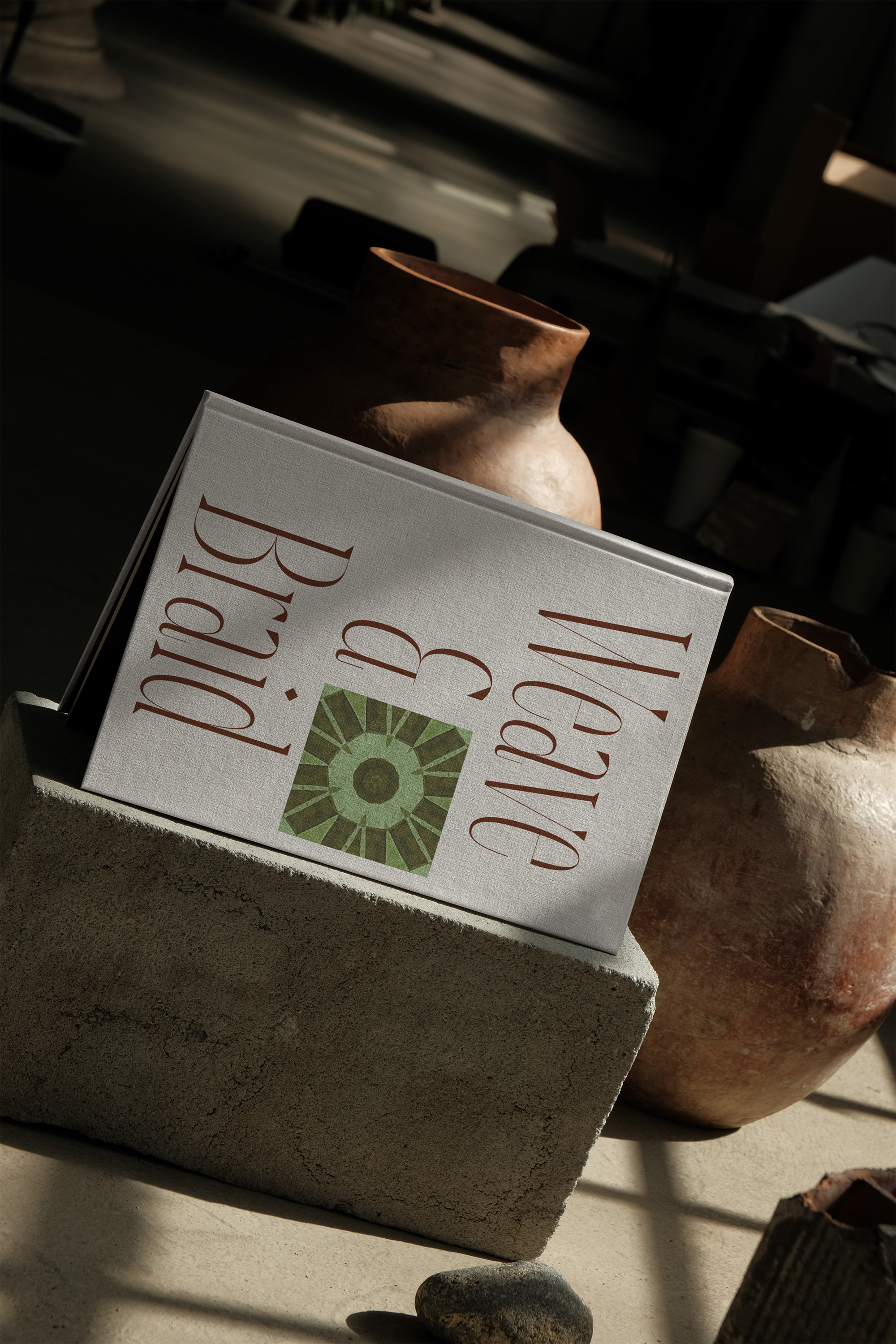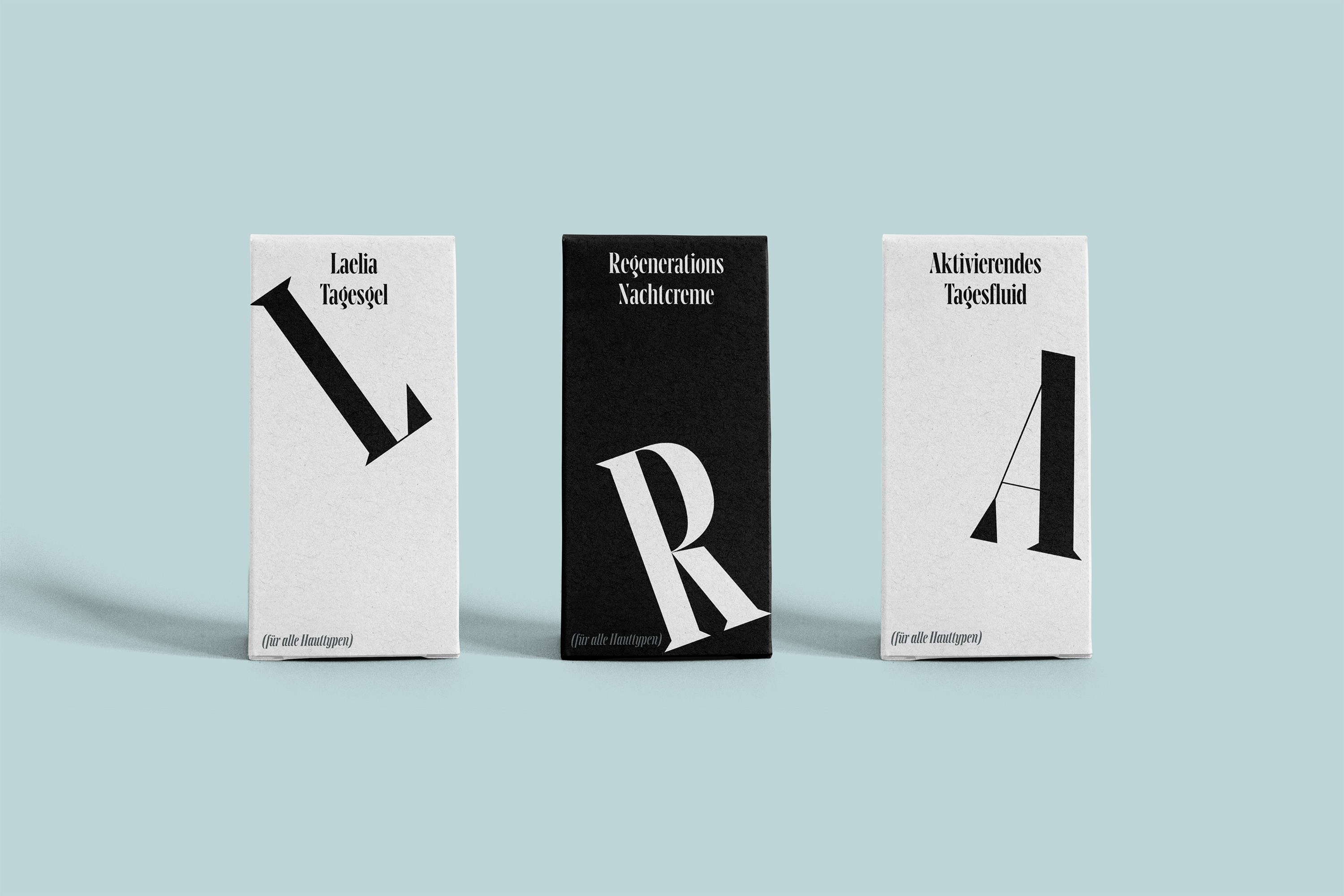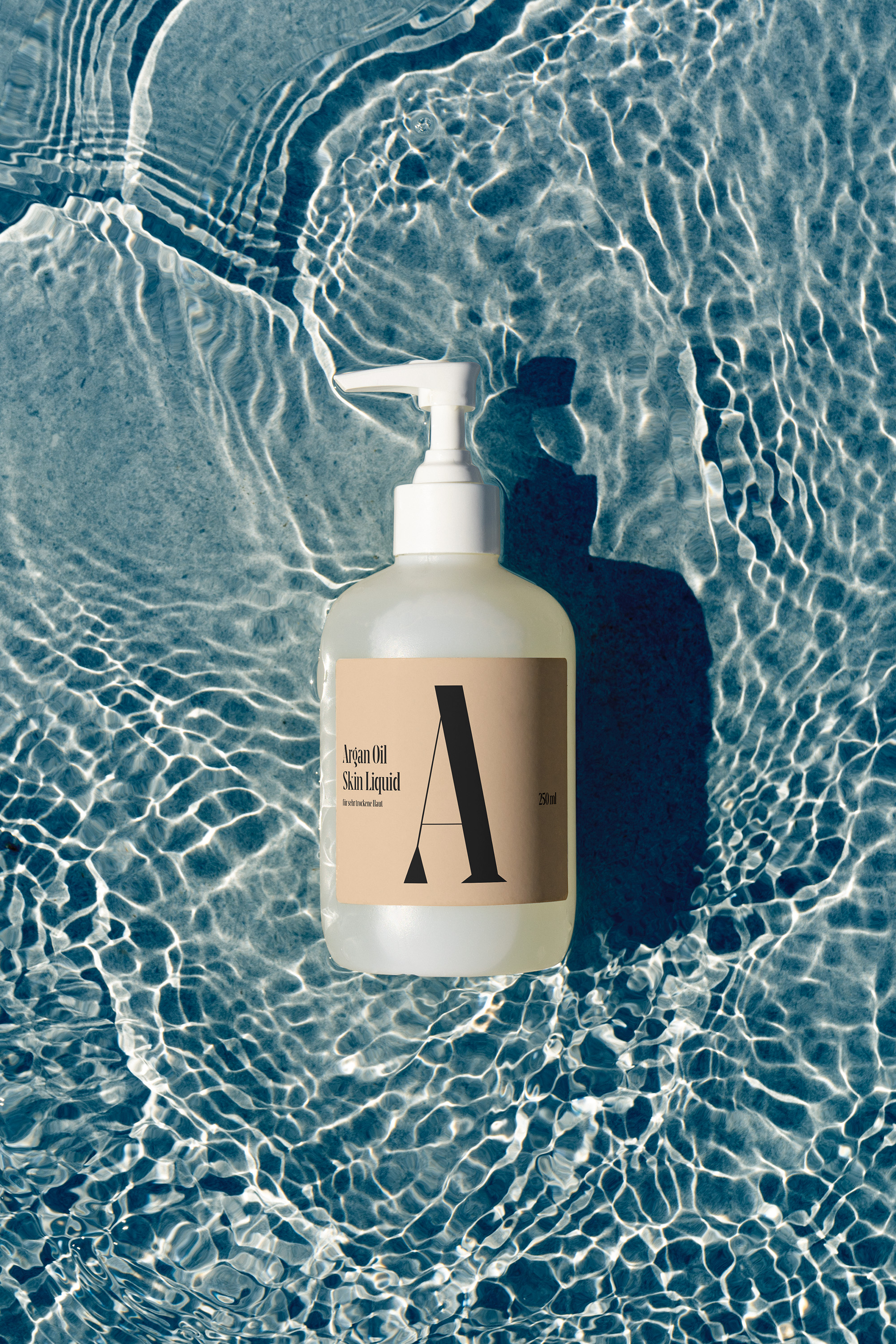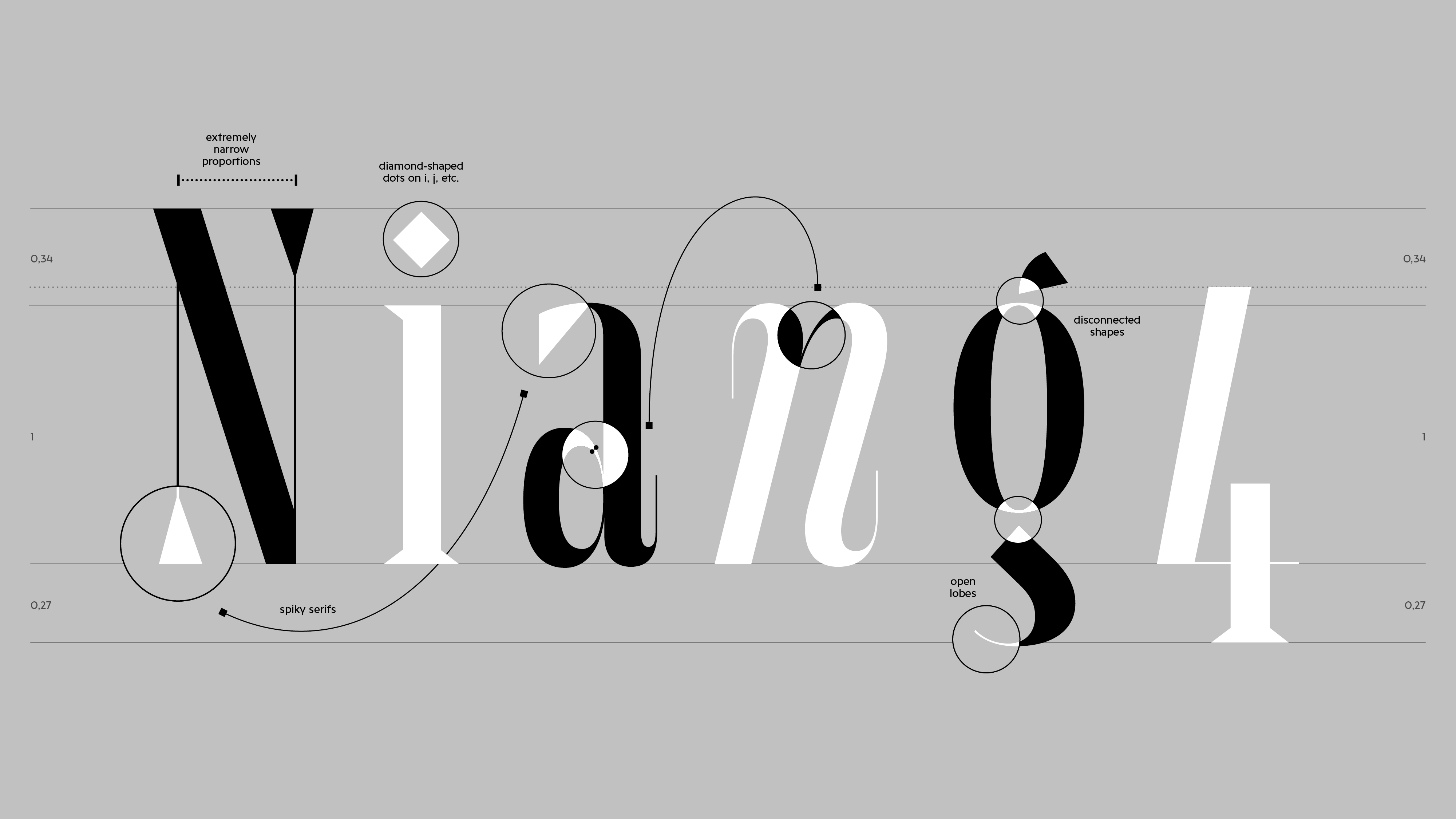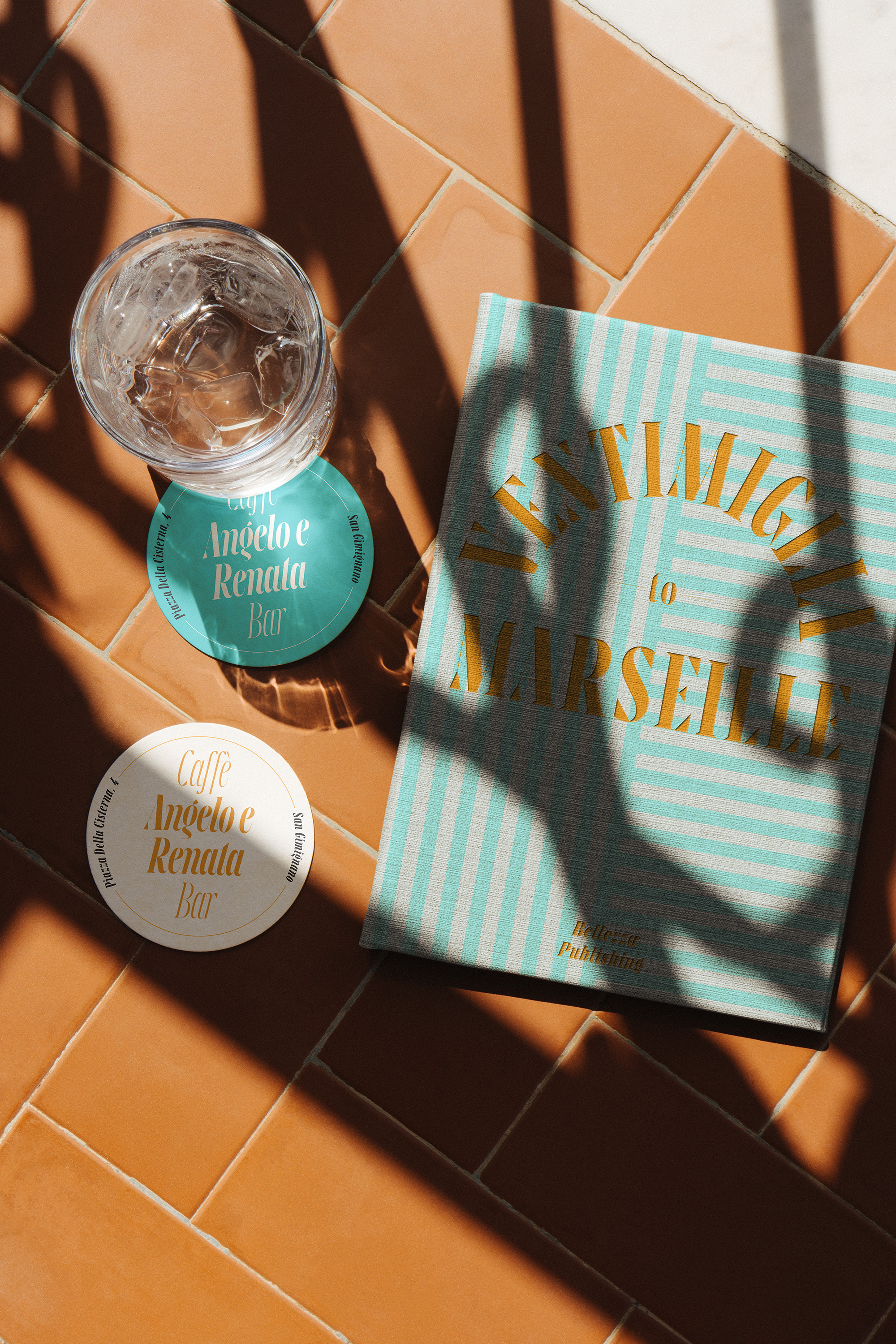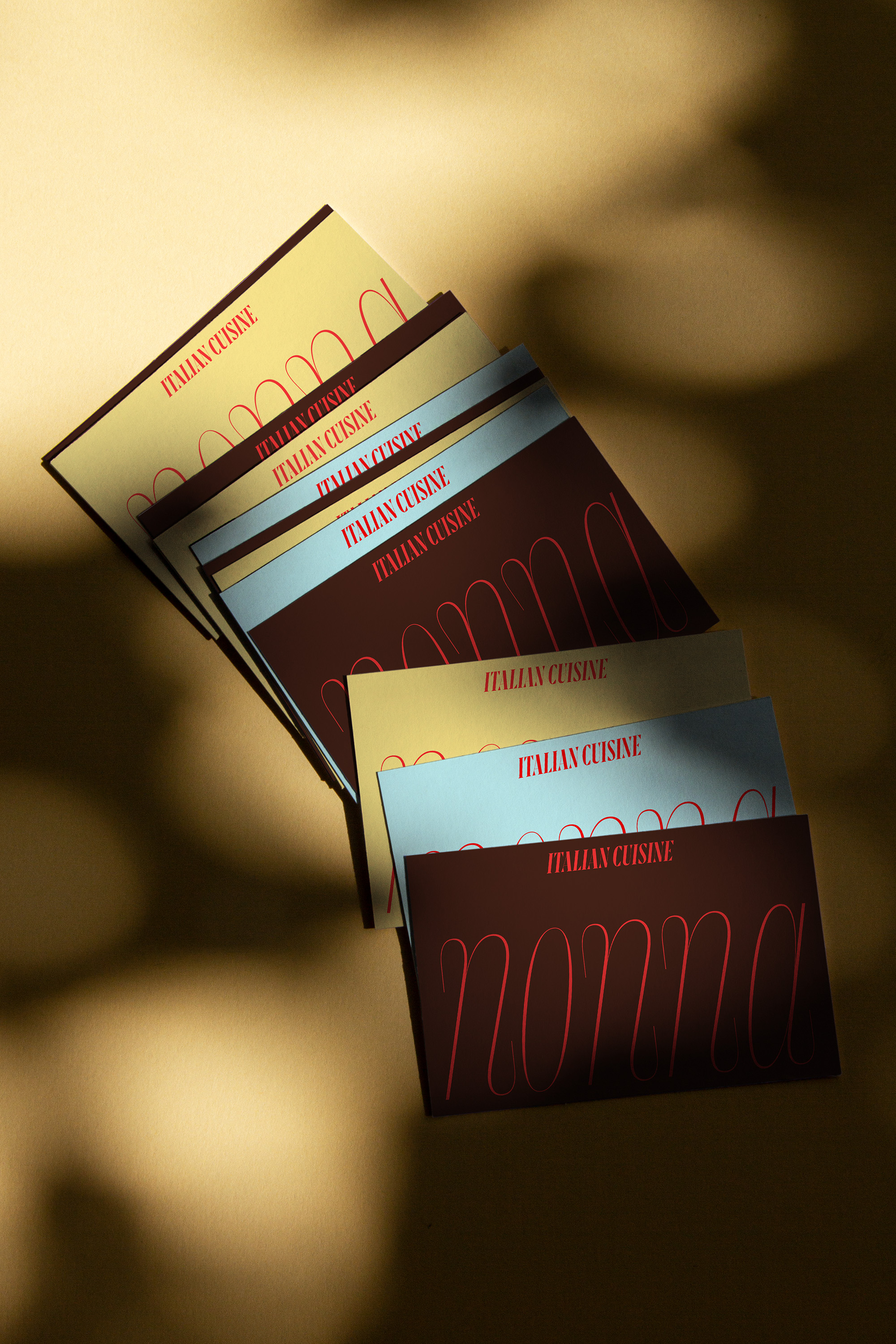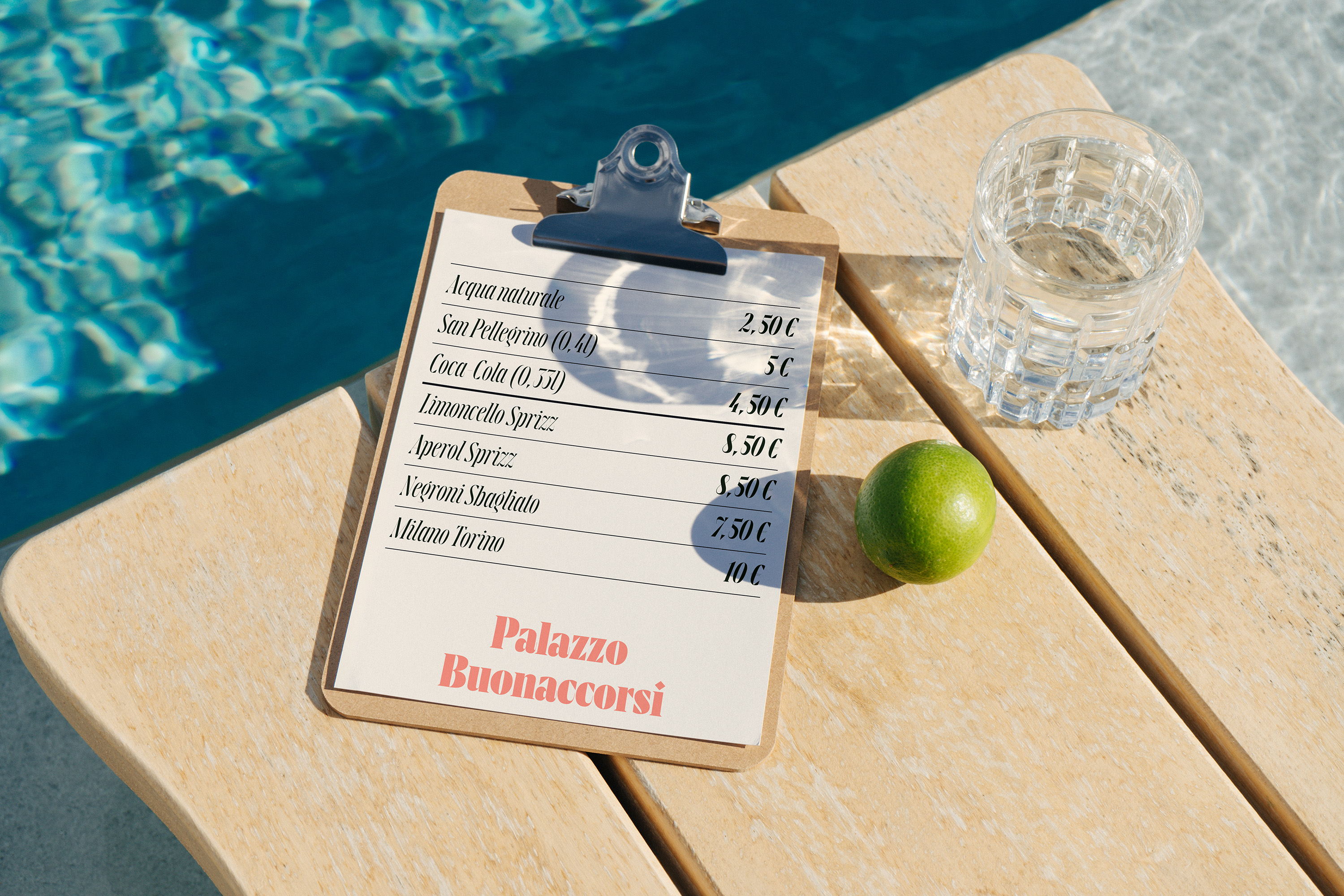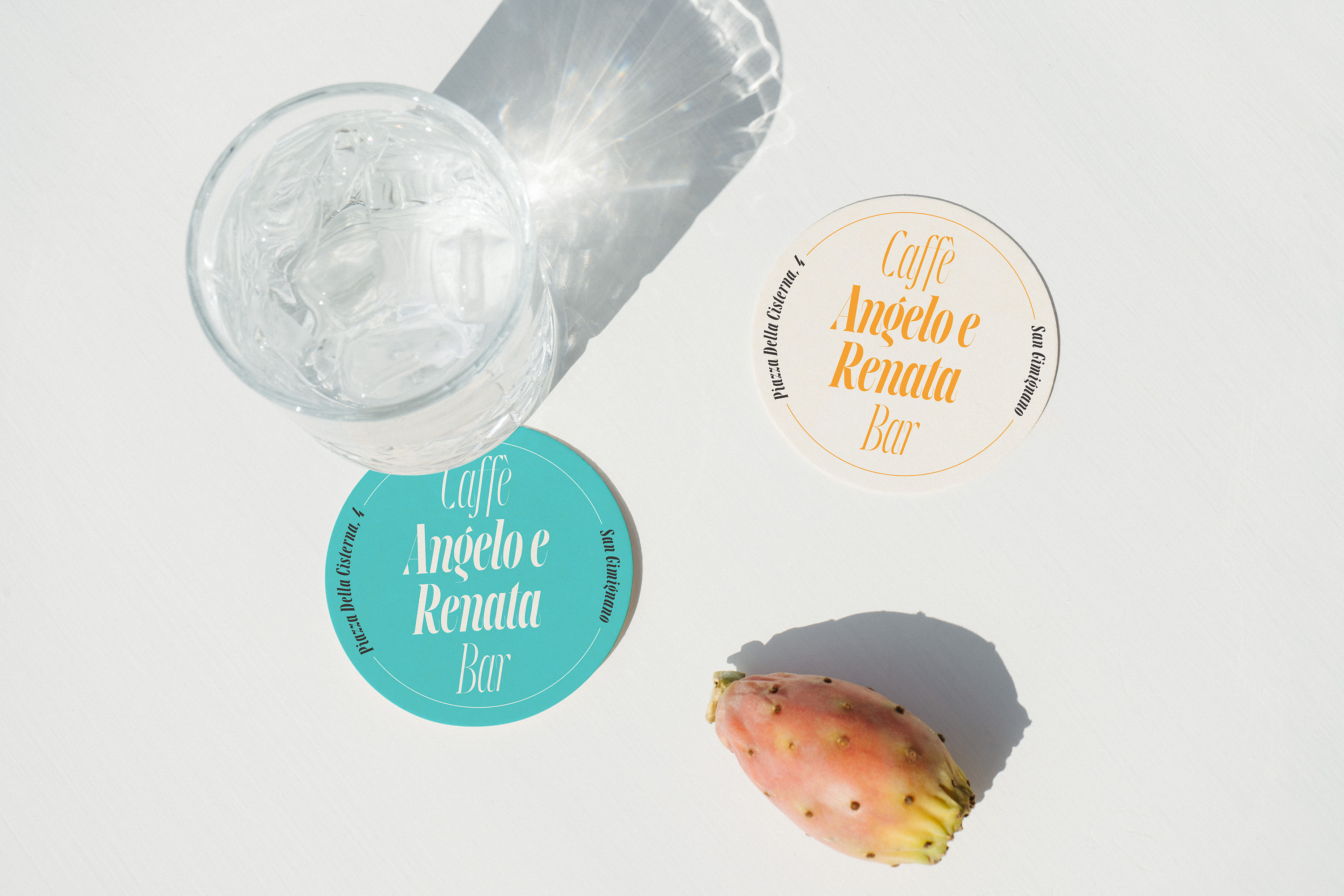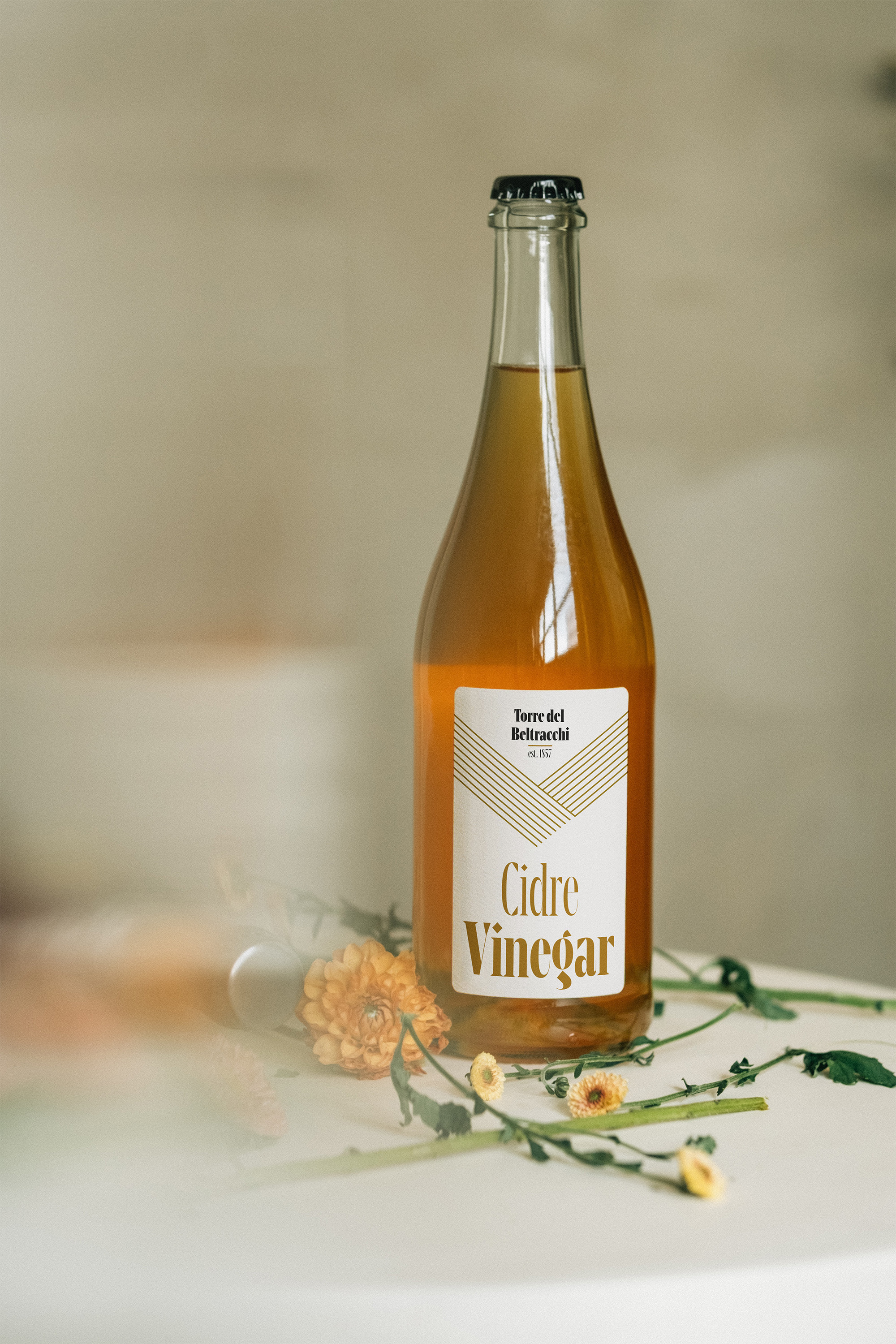
Maurizio feels like Italian bellezza as the evening sun accompanies the second glass of strong red wine on the shores of the Mediterranean. Maurizio is a display typeface suitable for big screens and big stages—the bigger, the better. Why? Because only at large sizes do Maurizio’s design features fully reveal themselves: razor-sharp serifs, open lobes like in “g”, twisted dots on “i”, “j”, etc.
The Italic, designed by Nina Botthof, adds some tenderness to the condensed and rigid design. The exaggerated end strokes in the lowercase letters create a very distinctive rhythm in the Italic styles while staying true to the original design.
Maurizio is an exploration into how far the concept of interpolation can be stretched in a superhigh-contrast display typeface. The goal to make the whole typeface interpolable from one extreme to the other heavily influenced the design. Only the two extremes have been drawn by hand: Hairline and Black, in both the Roman and the Italic. (Almost) everything in between has been interpolated.
Daniel Perraudin
Nina Botthof
Noe Blanco
TDC – Type Directors Club of New York (Judge’s Choice)